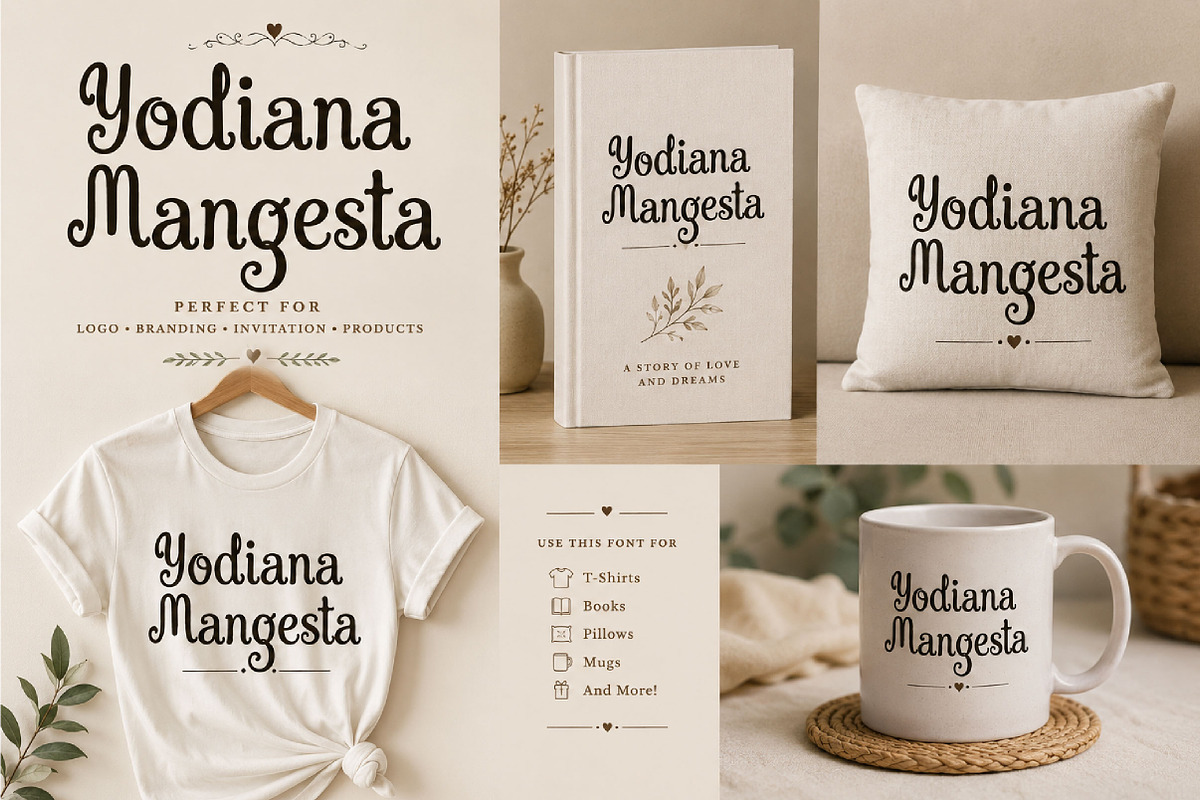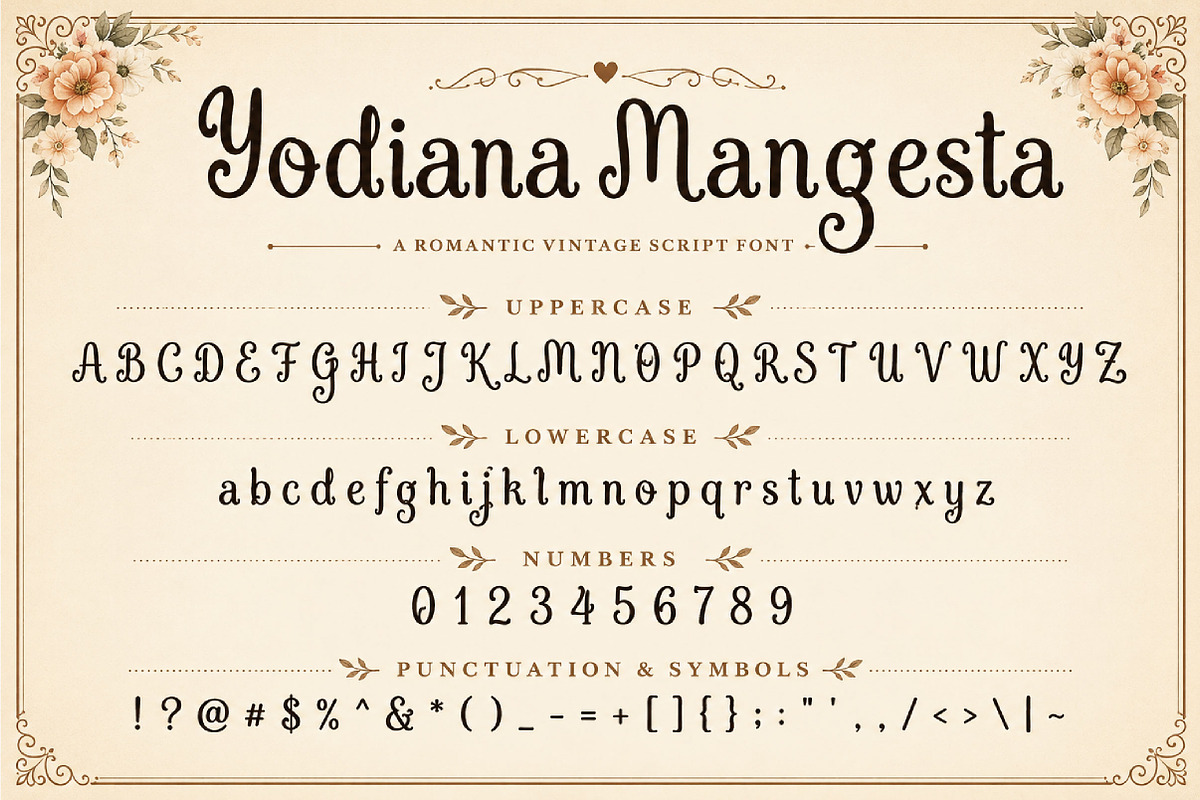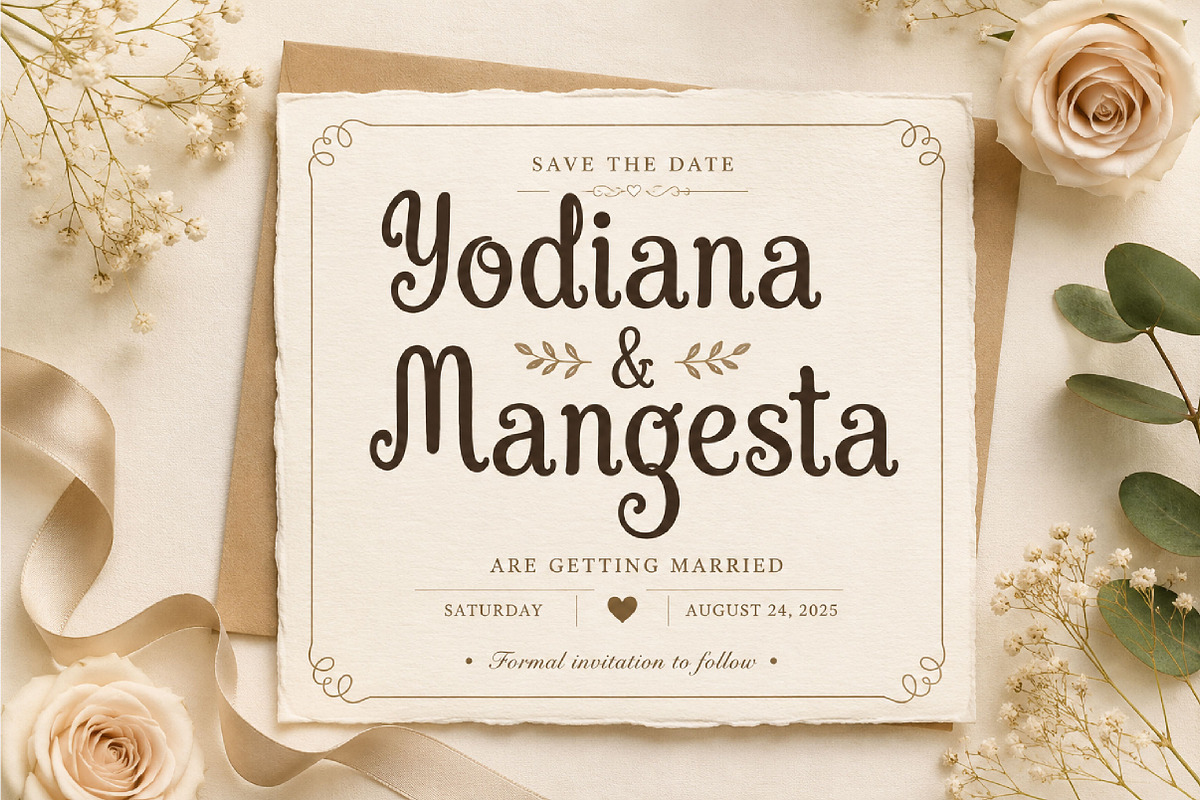
Yodiana Mangesta
Yodiana Mangesta – Playful Retro Serif Font
Yodiana Mangesta is a playful retro serif font with charming curves and decorative details, perfect for logos, branding, invitations, packaging, children’s designs, and cheerful typography.
Yodiana Mangesta is a fun and stylish retro serif display font designed with rounded shapes, elegant curves, and unique decorative letterforms. Its playful personality gives every design a warm, friendly, and creative appearance.
This font is perfect for branding, logo design, greeting cards, invitations, product packaging, posters, children’s projects, book covers, social media graphics, and boutique-style typography. The smooth curves and whimsical details make Yodiana Mangesta ideal for designs that need a joyful and memorable look.
Whether used for print or digital projects, Yodiana Mangesta brings charm, creativity, and a nostalgic retro feeling to your typography. It is a great choice for designers who want a font that feels cute, stylish, and full of personality.
Logo design
Branding projects
Invitations
Greeting cards
Product packaging
Children’s designs
Posters
Book covers
Boutique branding
Website headers
Playful typography
Uppercase letters
Lowercase letters
Playful retro serif style
Rounded decorative details
Smooth curved letterforms
Friendly display appearance
Perfect for logos and titles
Suitable for print and digital use